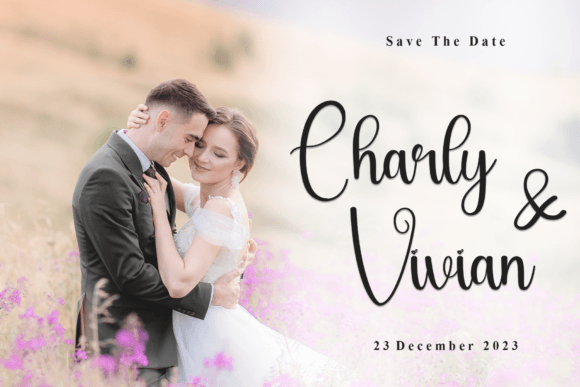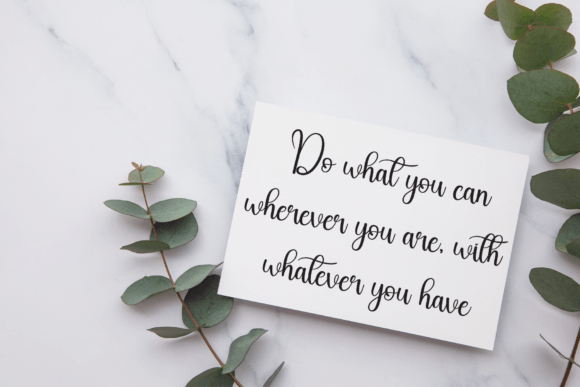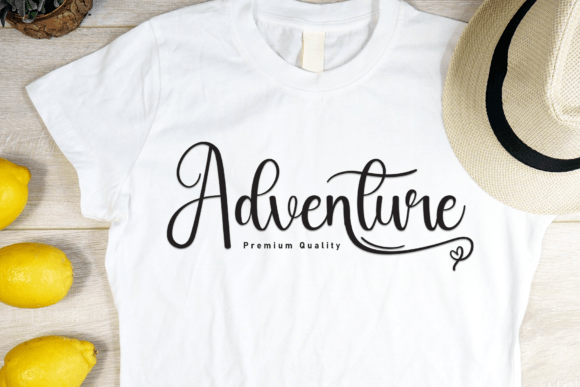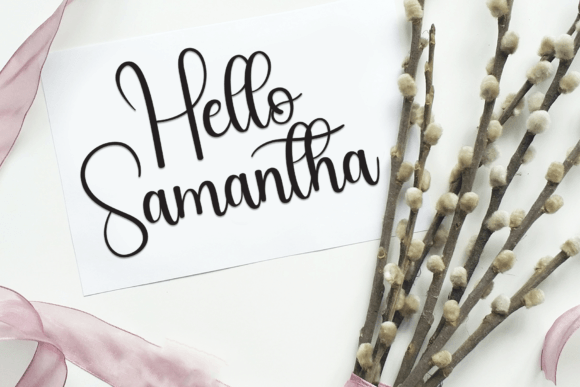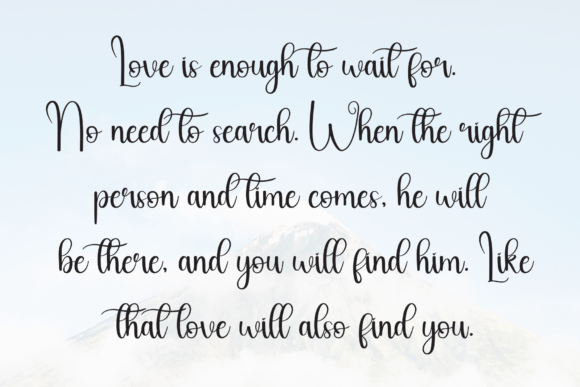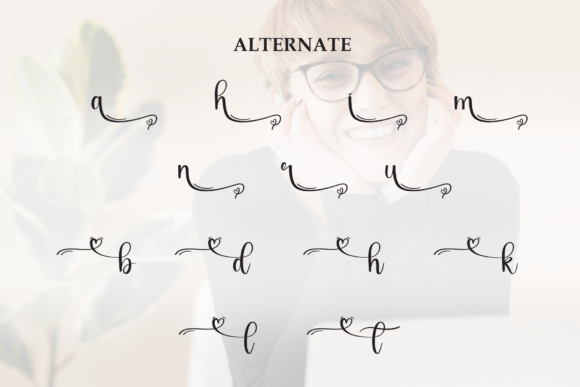
When Words Need a Little Extra Love
Have you ever been brainstorming a new project and suddenly, the perfect font pops into your mind? For designers, those ‘aha’ moments are what make the creative process so magical. For me, it was when I stumbled upon Agreeable Font – a sweet and friendly handwritten display font that screams ‘fun’ and ‘whimsy’.
Designed to bring a smile to your designs, Agreeable Font is perfect for writing wedding invitations, cards, or any other project that needs a playful touch. Its cute and fun vibe makes it an instant favorite among designers looking to add a little personality to their work. Whether you’re a seasoned pro or just starting out, Agreeable Font is a valuable addition to your design toolkit.
Agreeable Font Key Features
- Font Family: Agreeable Font is a high-quality, professional font designed for various applications, including digital and print media.
- Unique Characteristics: Agreeable Font features a unique blend of modern and classic design elements, with a focus on readability and elegance, making it suitable for a wide range of applications, including corporate branding, advertising, and publishing.
Agreeable Font Review
Overall, I have mixed feelings about the Agreeable Font. On the one hand, it’s a beautiful and elegant font that can add a touch of sophistication to any design project. ✨ The flowing curves and subtle nuances in letterform make it perfect for applications that require a high-end feel.
However, I do have some concerns about its limitations. ⚠️ Firstly, the font can be quite difficult to read at smaller sizes, which may make it less suitable for body text or any content that requires a high level of legibility. Additionally, the font’s elegance can sometimes come across as overly formal or even pretentious, which may not be suitable for all design projects.
- ✨ Elegant and sophisticated design
- ✨ Perfect for high-end applications or luxury brands
- ⚠️ Difficult to read at smaller sizes
- ⚠️ May come across as overly formal or pretentious
Overall, I would recommend the Agreeable Font for projects that require a touch of elegance and sophistication, but with caution. It’s essential to consider the font’s limitations and ensure that it aligns with the project’s goals and audience.
Tips for Getting the Most Out of Agreeable Font
For optimal results, use Agreeable Font in conjunction with a clean and minimalistic design aesthetic. Experiment with different font sizes and colors to achieve a harmonious balance.
Agreeable Font is ideal for:
- Editorials and opinion pieces
- Personal blogs and websites
Alternatives to Agreeable Font
Lato is a modern sans-serif font designed by Łukasz Dziedzic. It’s suitable for body text, headings, and titles. Lato is more geometric and clean compared to Agreeable Font, which is more rounded and friendly. Use Lato when you need a professional and elegant look.
Montserrat is a geometric sans-serif font designed by Julieta Ulanovsky. It’s ideal for headlines, titles, and short paragraphs. Montserrat is more condensed and modern compared to Agreeable Font, which is more spacious and traditional. Use Montserrat when you need a bold and urban look.
Arimo is a sans-serif font designed by Steve Matteson. It’s suitable for body text, headings, and titles. Arimo is more modern and sleek compared to Agreeable Font, which is more classic and traditional. Use Arimo when you need a clean and minimalist look.
Open Sans is a sans-serif font designed by Steve Matteson. It’s ideal for body text, headings, and titles. Open Sans is more neutral and friendly compared to Agreeable Font, which is more playful and approachable. Use Open Sans when you need a clean and approachable look.